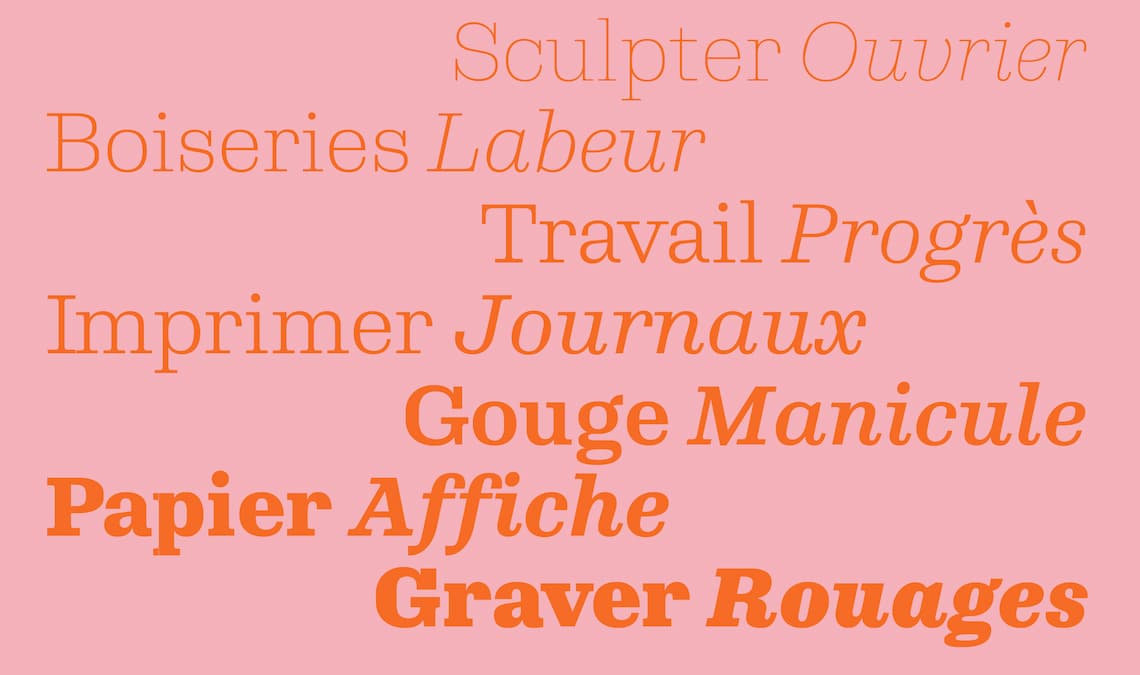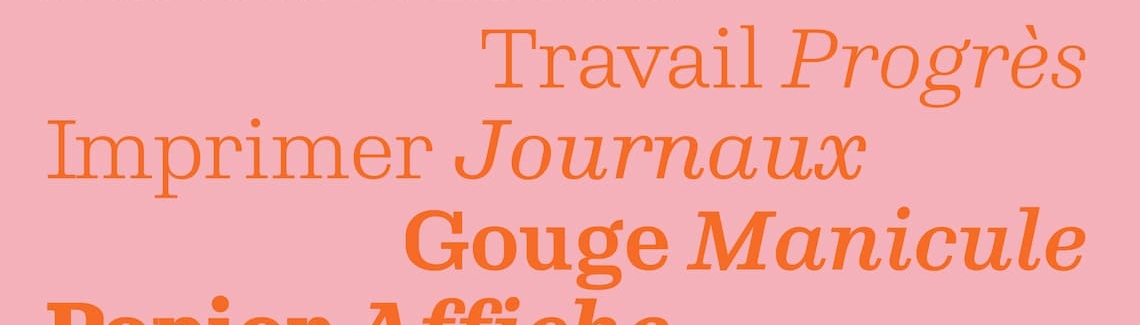
Ploquine sneak peek
Emma Marichal’s Ploquine will be released in early 2024. Here’s a look at its current progress.
Emma Marichal won the 2022 Gerard Unger Scholarship for her Ploquine font family. Since then she has been diligently working to define its styles, features, and expanding the character set based on its intended tone. What is that tone? It can be delicate or aggressive, masterfully captivating or merely context.
This slab serif is based on early wood types and will have 14 total styles suitable for magazine paragraphs, headlines, logotypes with a refined presence, and poster-sized text intending to show off its hidden details. While we wait for Ploquine’s release in early 2024, we are happy to bring you a look at its development.